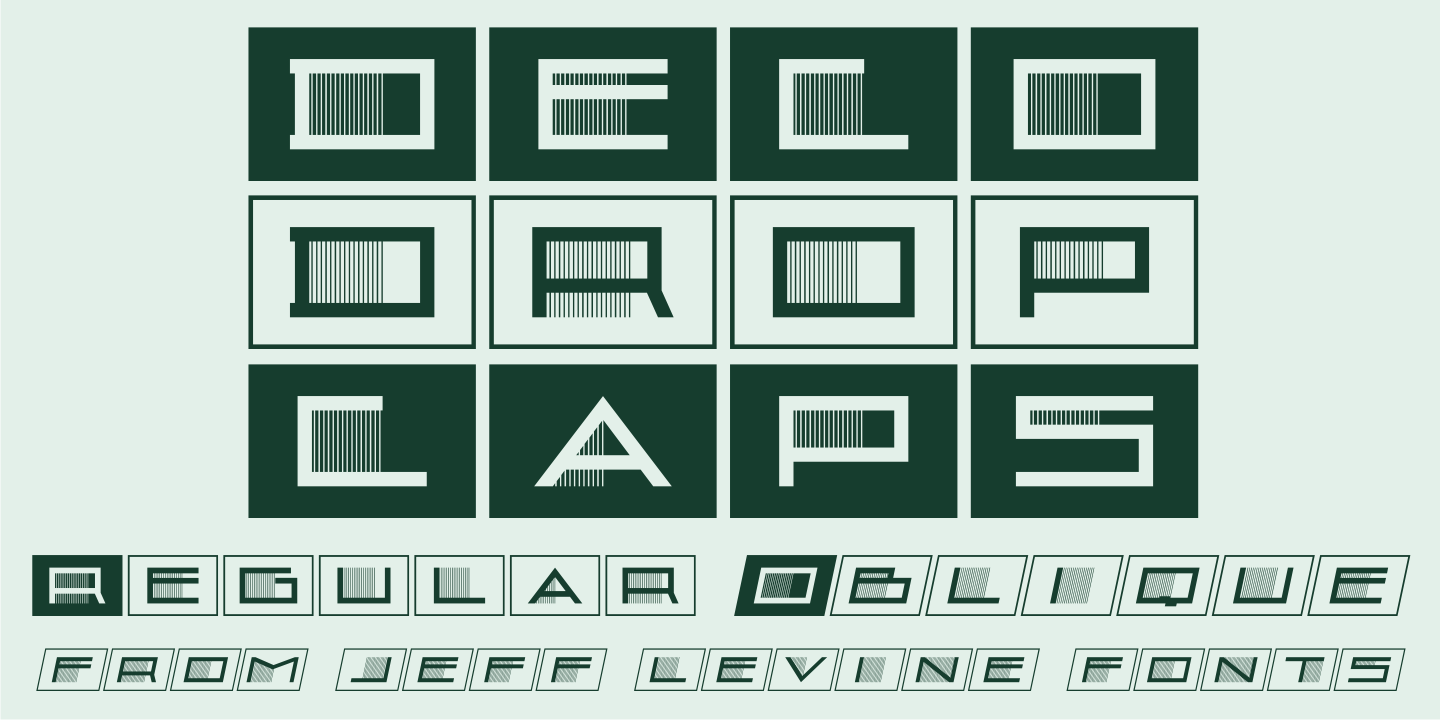
Deco Drop Caps
From the pages of the 1939 French lettering book “Modèles de lettres modernes par Georges Léculier” (“Models of Modern Lettering”) comes an attractive and unusual set of initial drop caps made from square letters adorned with multiple vertical lines.
Originally designed as white letters on black backgrounds, an additional set with black letters on white backgrounds comprise Deco Drop Caps JNL; available in both regular and oblique versions.